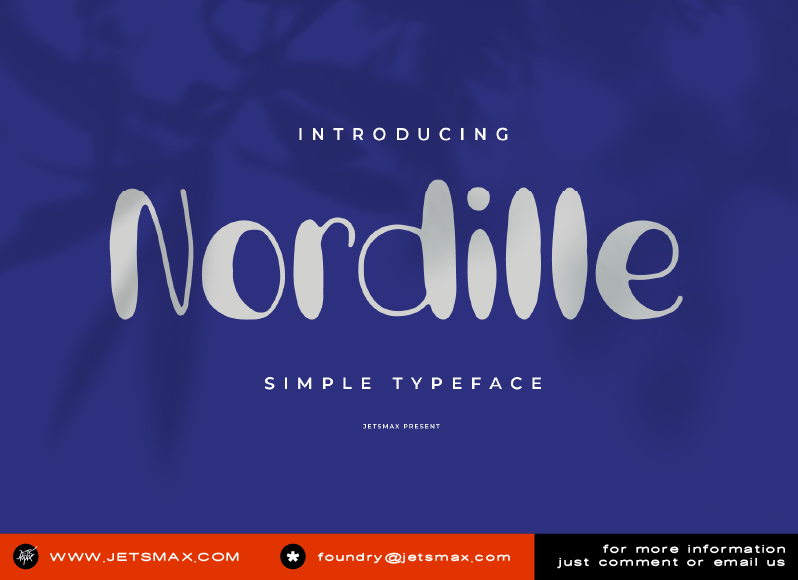
Nordille is a quirky and unique display typeface. With its two different styles, Regular and Outline, this hand-drawn font will make your design projects stand out! Nordille Font is suitable for a variety of branding projects, logos, parties and events, social media posts, advertisements, and so much more. Be different with Nordille! By installing or using this font, you are agreeing to the Product Usage Agreement: � This is a demo version (ttf files only) and free for personal use. � Here is the link to purchase the full version and commercial license: https://jetsmax.com/nordille/ � For Corporate use, you have to purchase a Corporate license � If you need a custom license please contact us at foundry@jetsmax.com � Any donations are very appreciated. Paypal account for donation: https://paypal.me/KhairilAnwar Happy Creation! ----------------------------------------------- FOR SOME FREEBIES CHECK OUT >>> www.jetsmax.com ----------------------------------------------- |